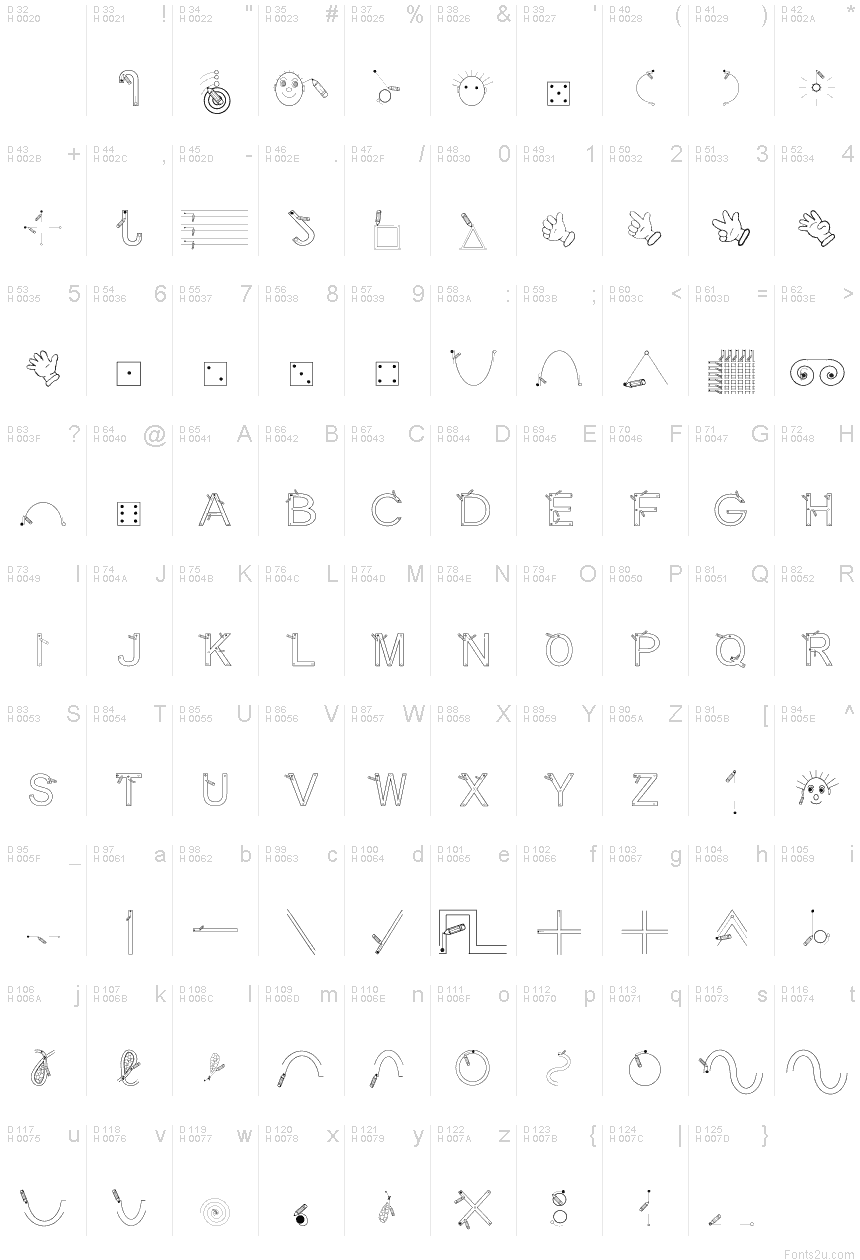
Maternellecolor graphisme
Maternellecolor Graphisme font by Maternellecolor is a free decorative display font with a hand-drawn outline style and school supply motifs woven into the letterforms. The shapes feel like they were sketched with a ruler and pencil, with open contours, simple straight segments, and a loose curved stroke that gives the design a graphic, classroom-made character.
Maternellecolor Graphisme works well for classroom posters, stationery, craft labels, learning worksheets, and children's activity sheets because the drawing-tool details make the lettering feel tied to making and sketching. This free font also suits scrapbook titles, art project covers, and playful header accents where a penciled, illustrated look is more useful than a plain text style.